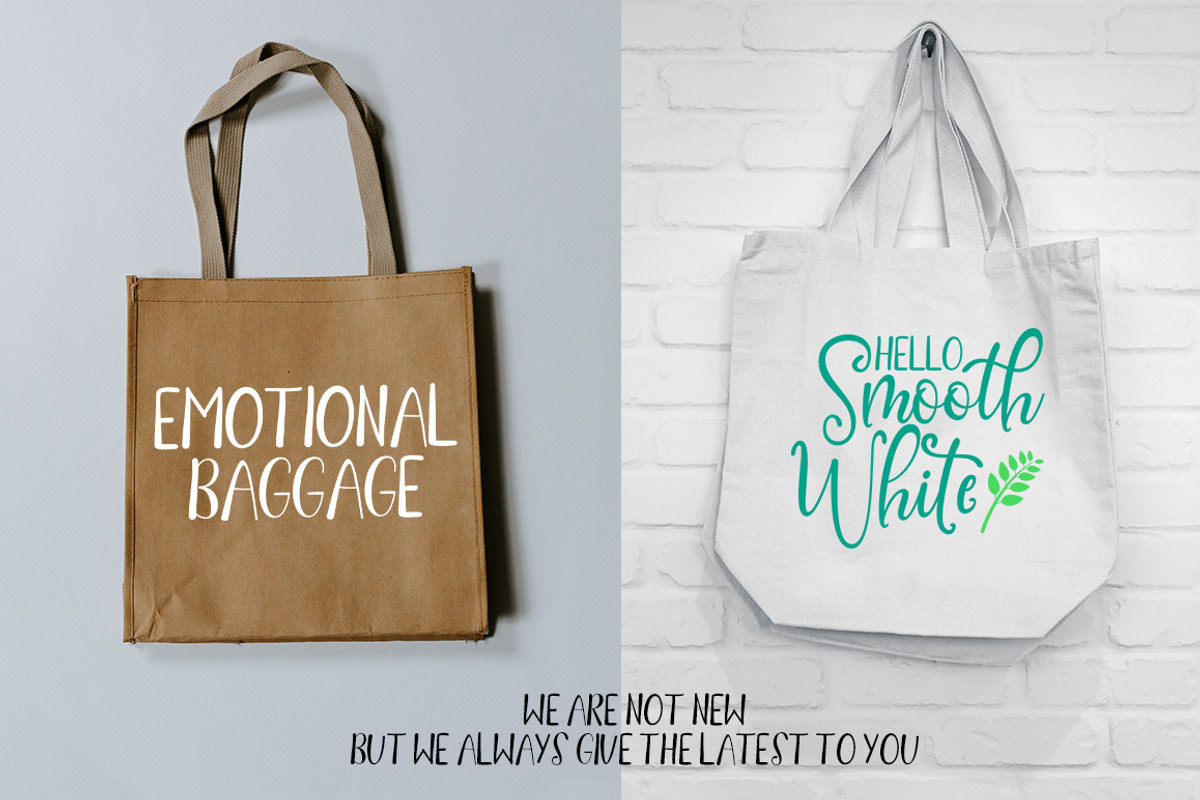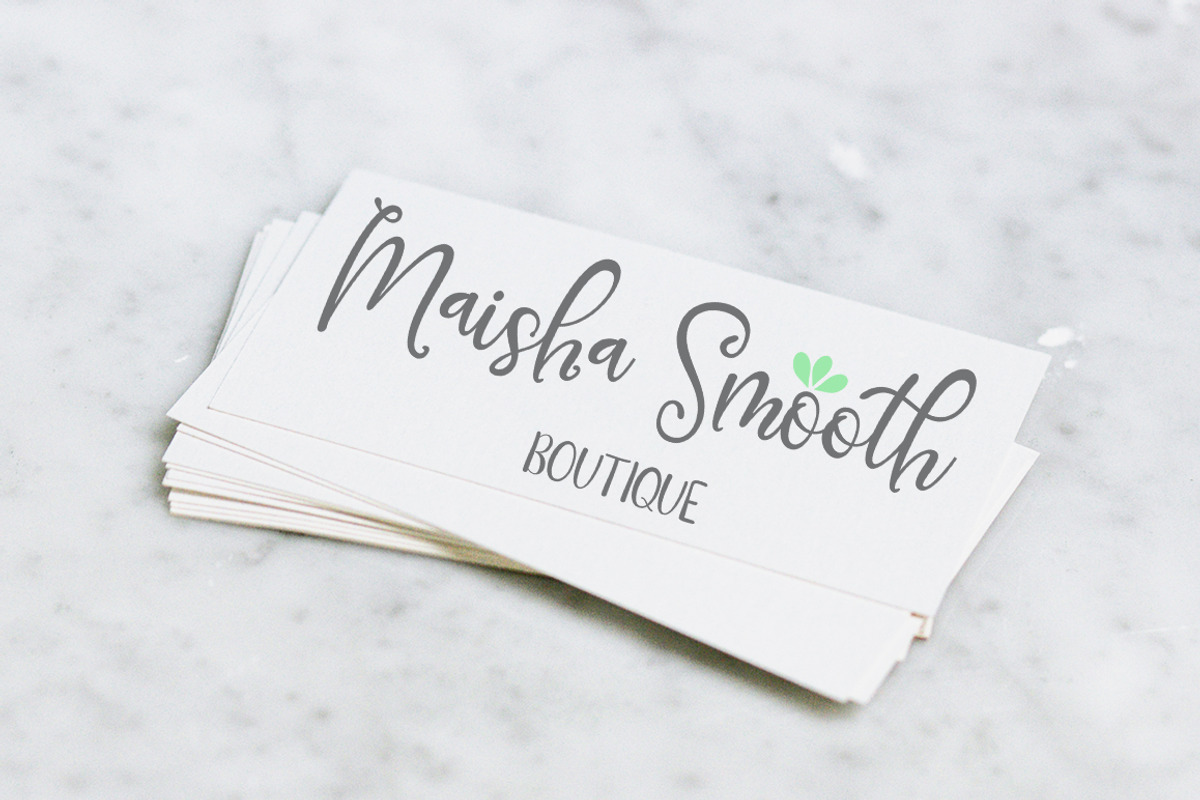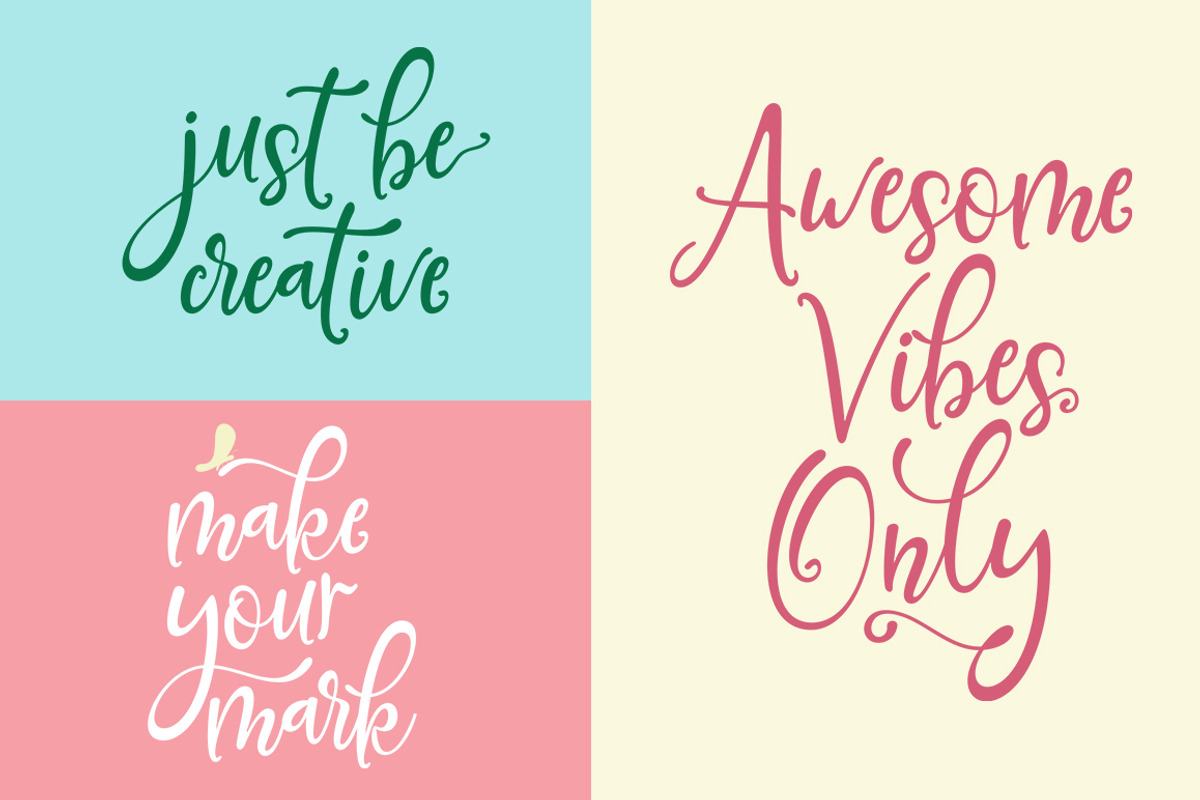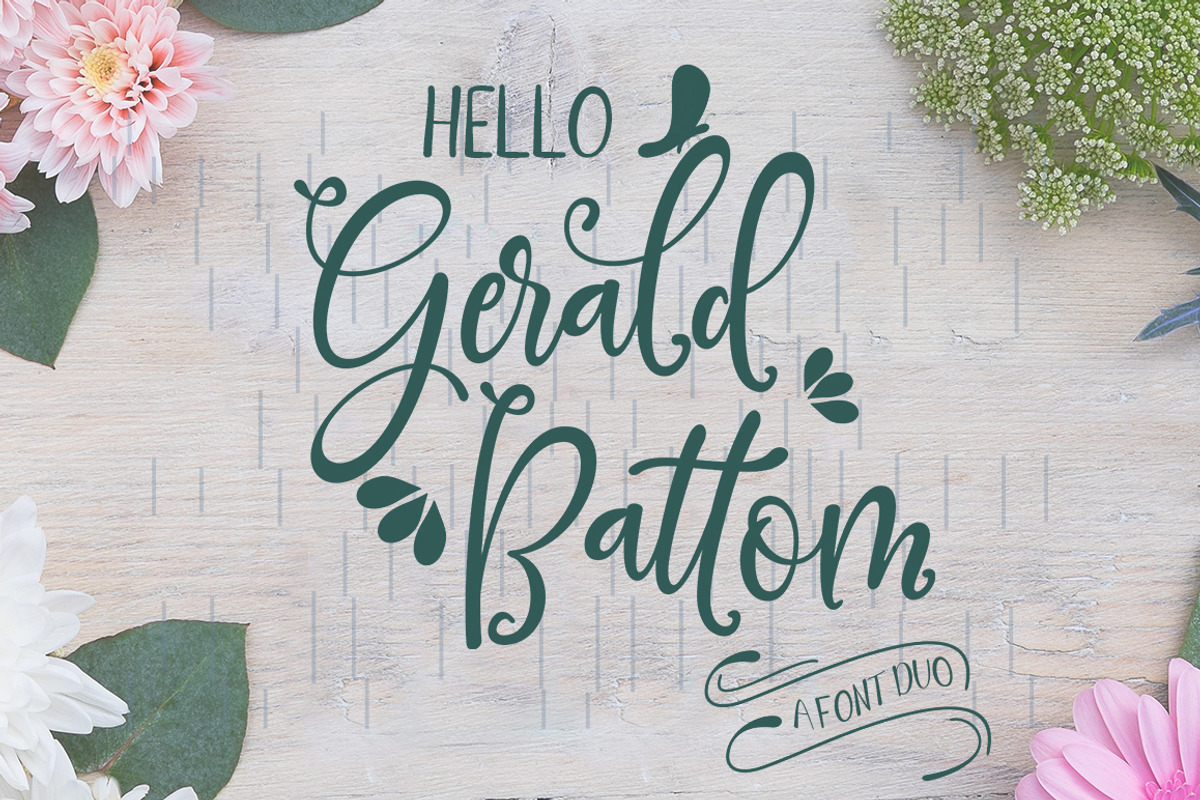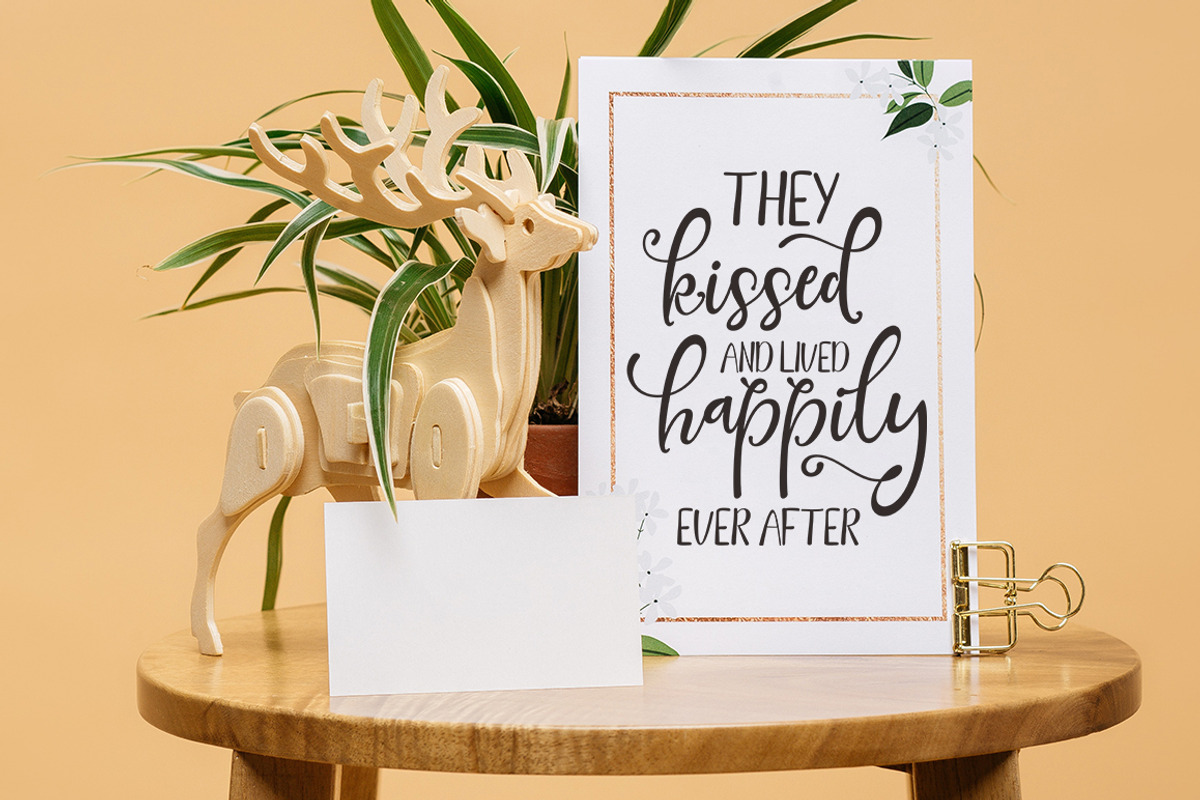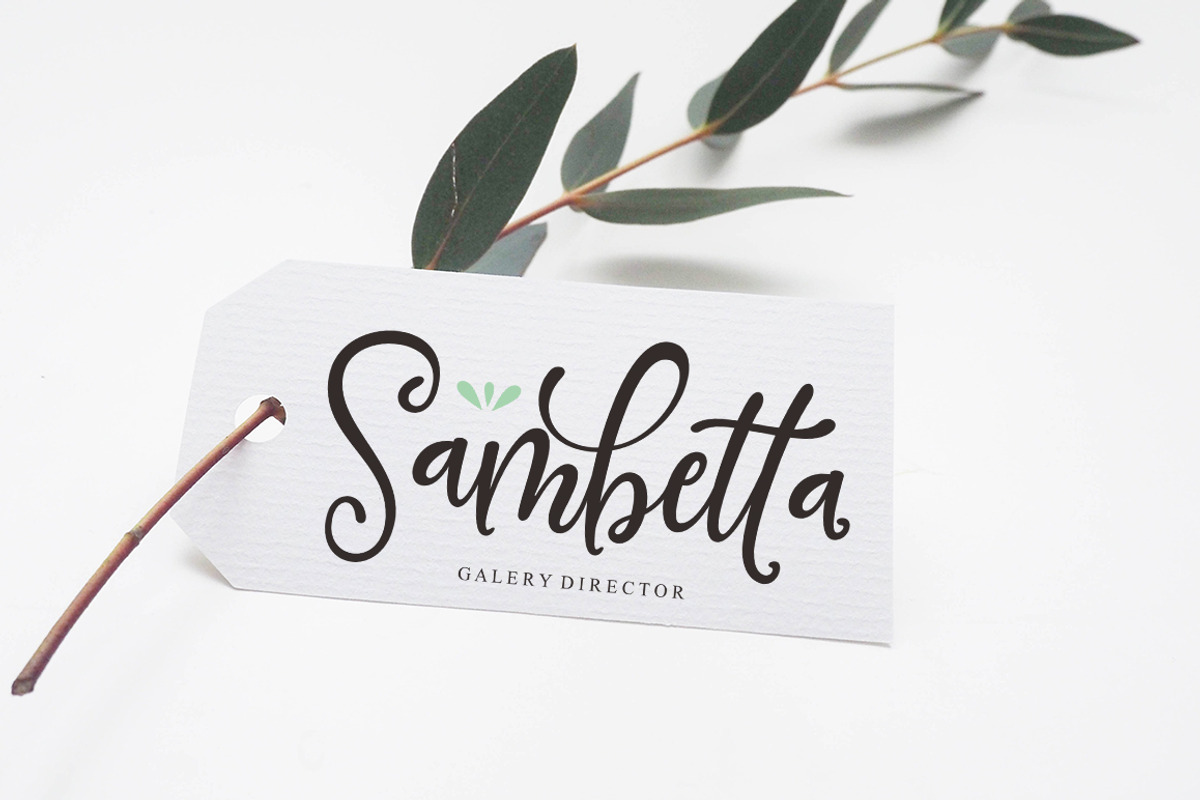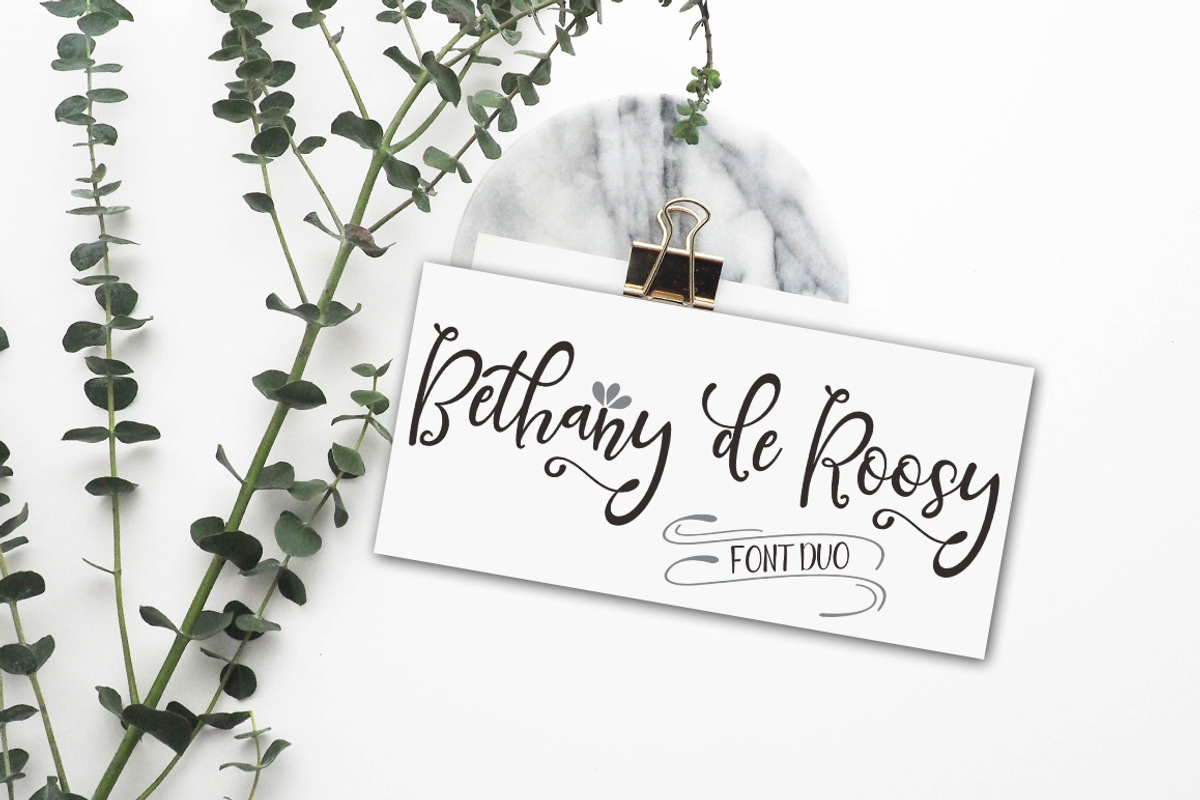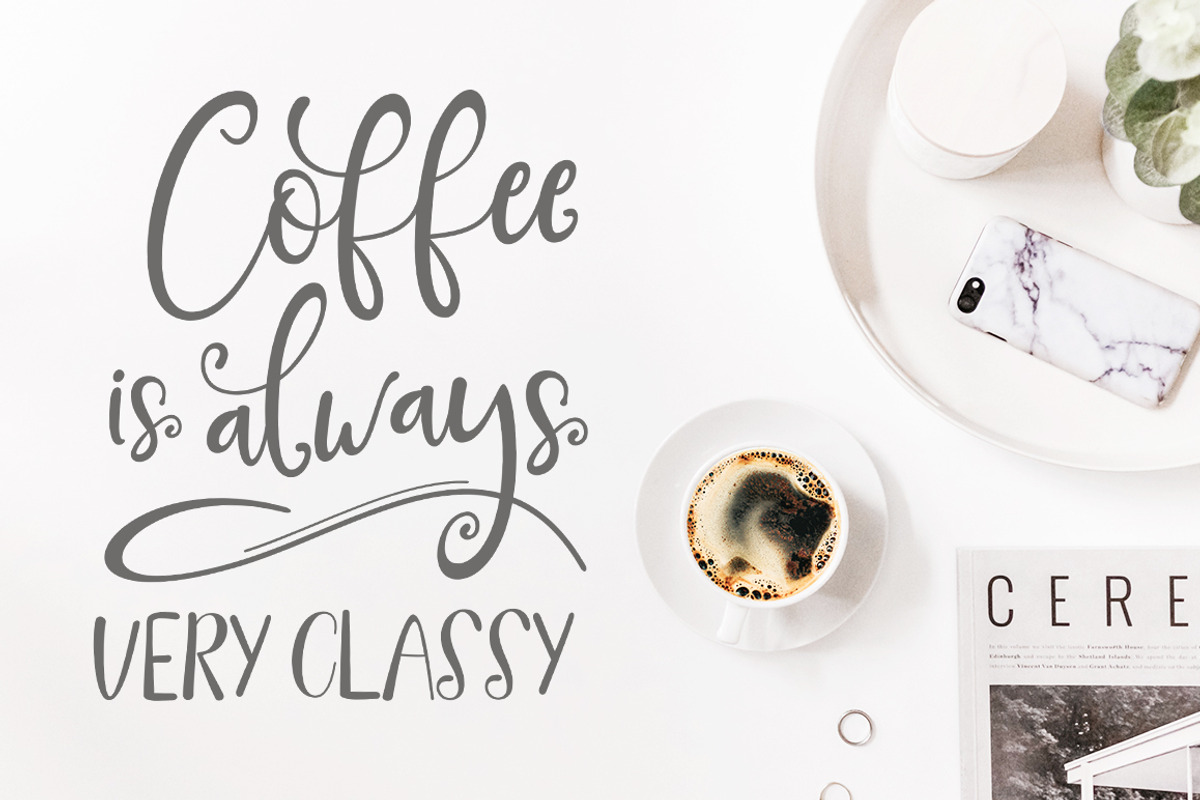
Gerald Battom Script Font DUO
Gerald Battom Script Font DUO is a new modern script font with an irregular base line. Trendy and feminine style. Gerald Battom Script looks beautiful in wedding invitations, thank-you cards, quotes, greeting cards, logos, business cards, and more. Perfect for use in ink or watercolors. Including initial letters and terminals, alternatives and support for many languages.